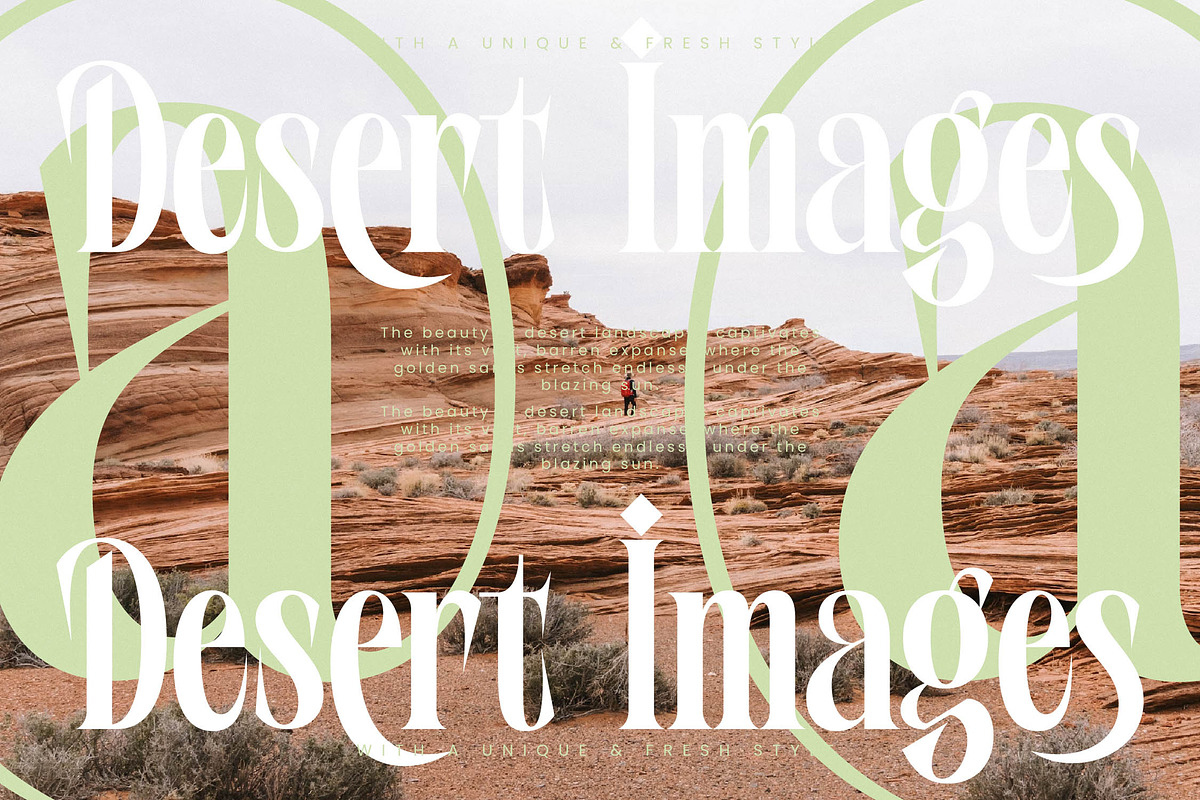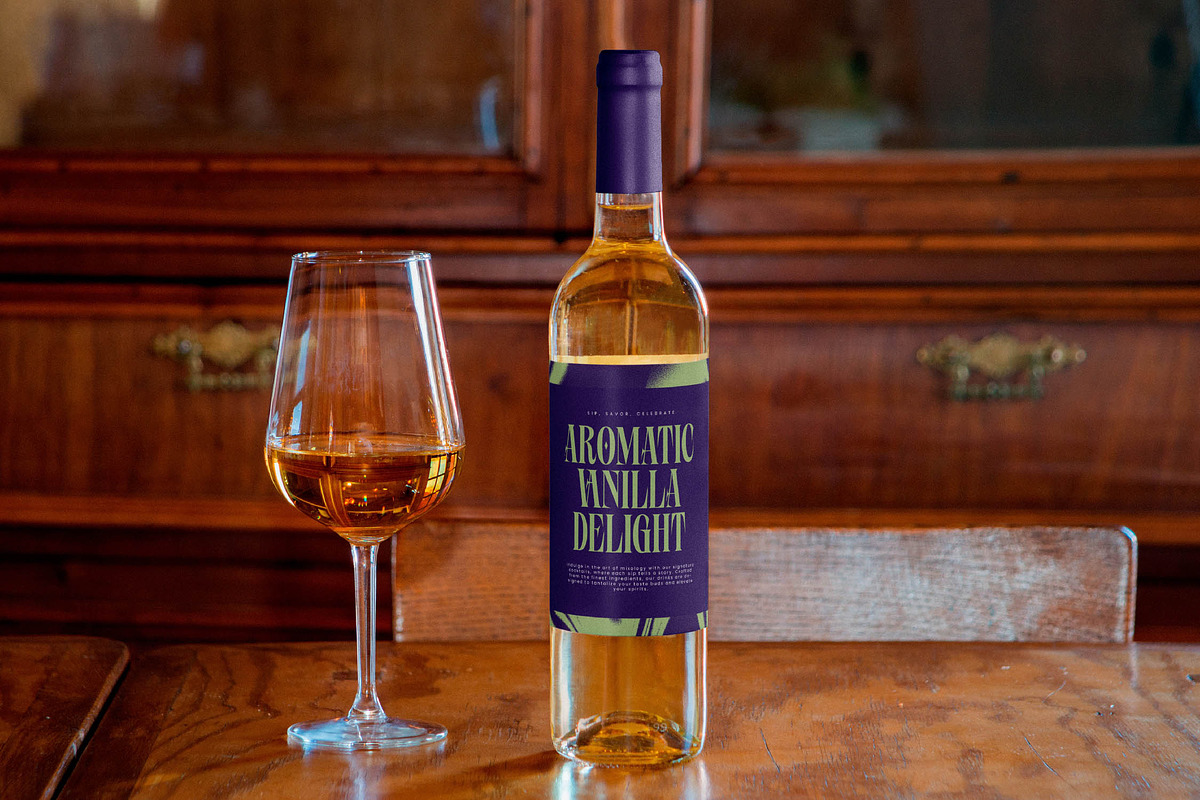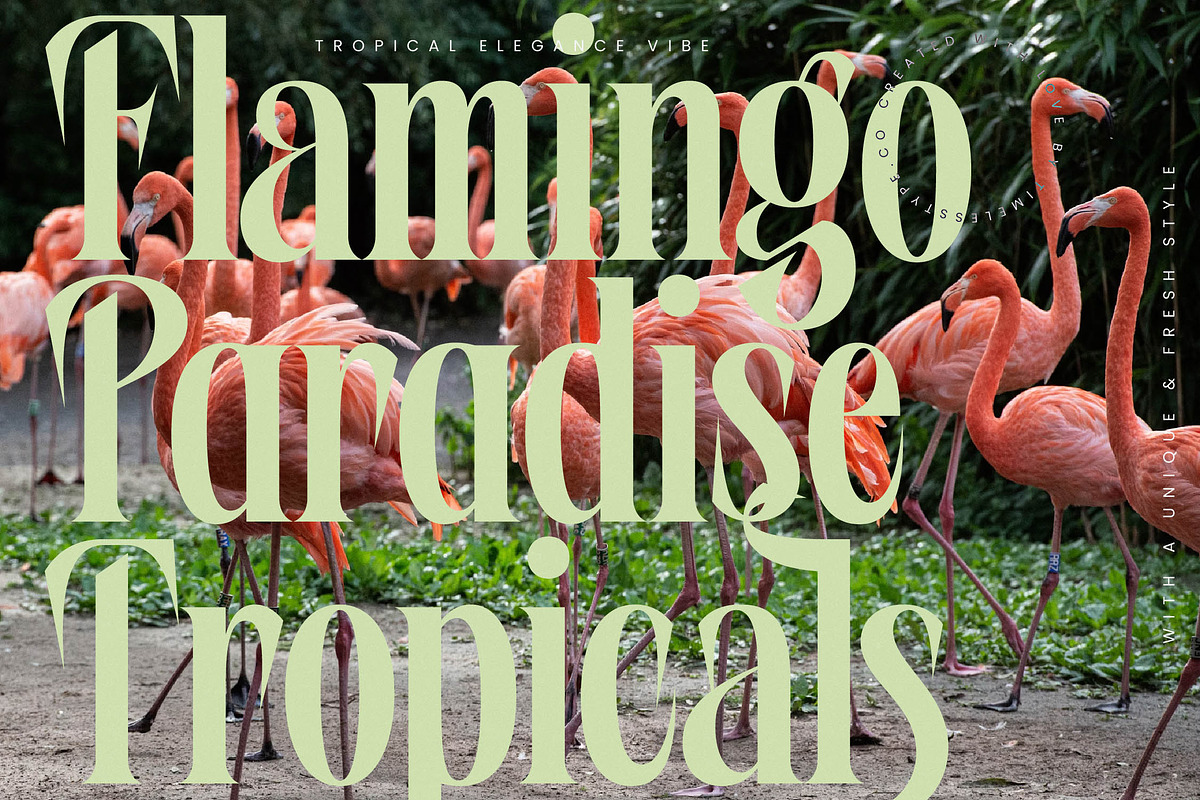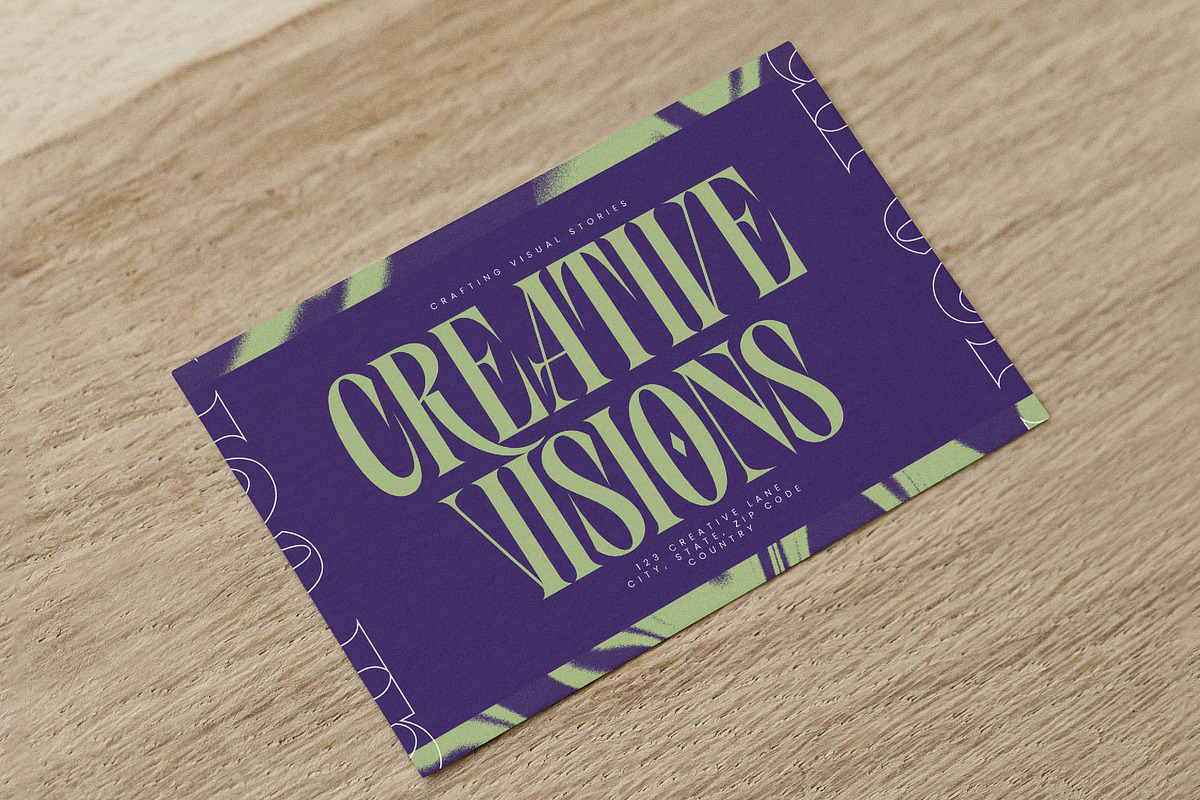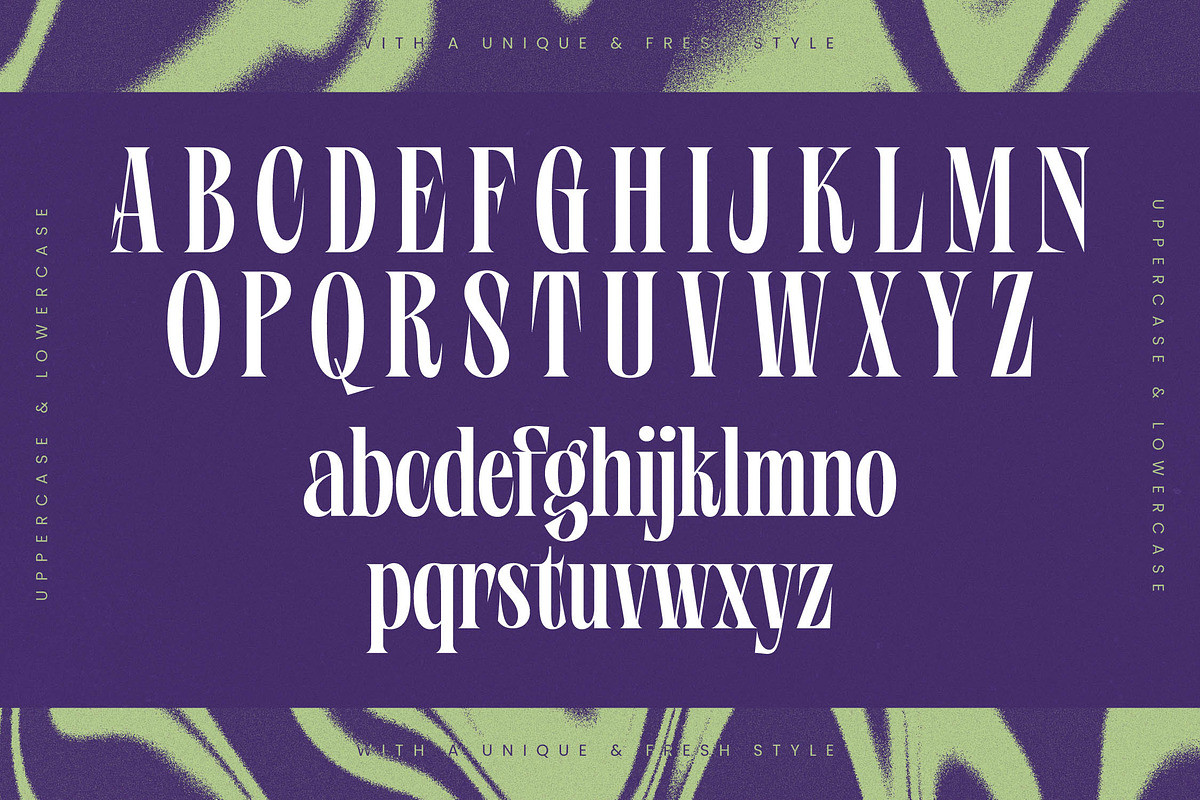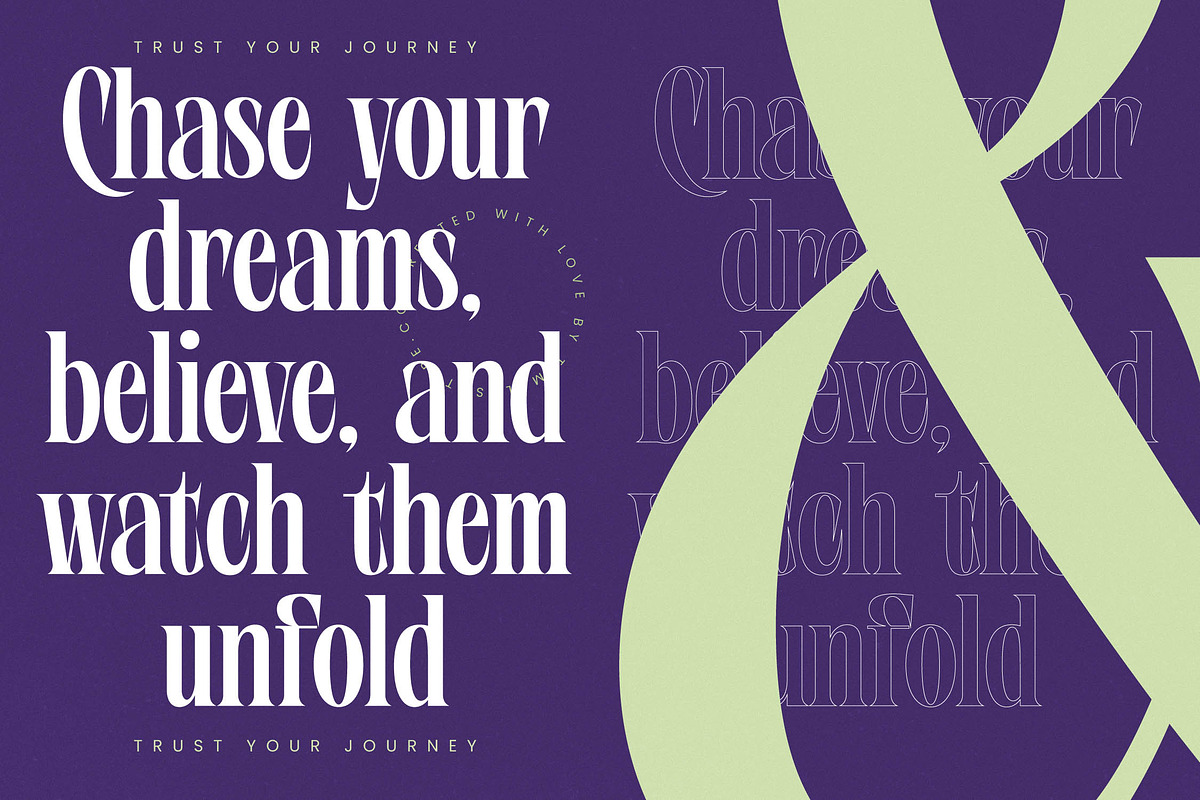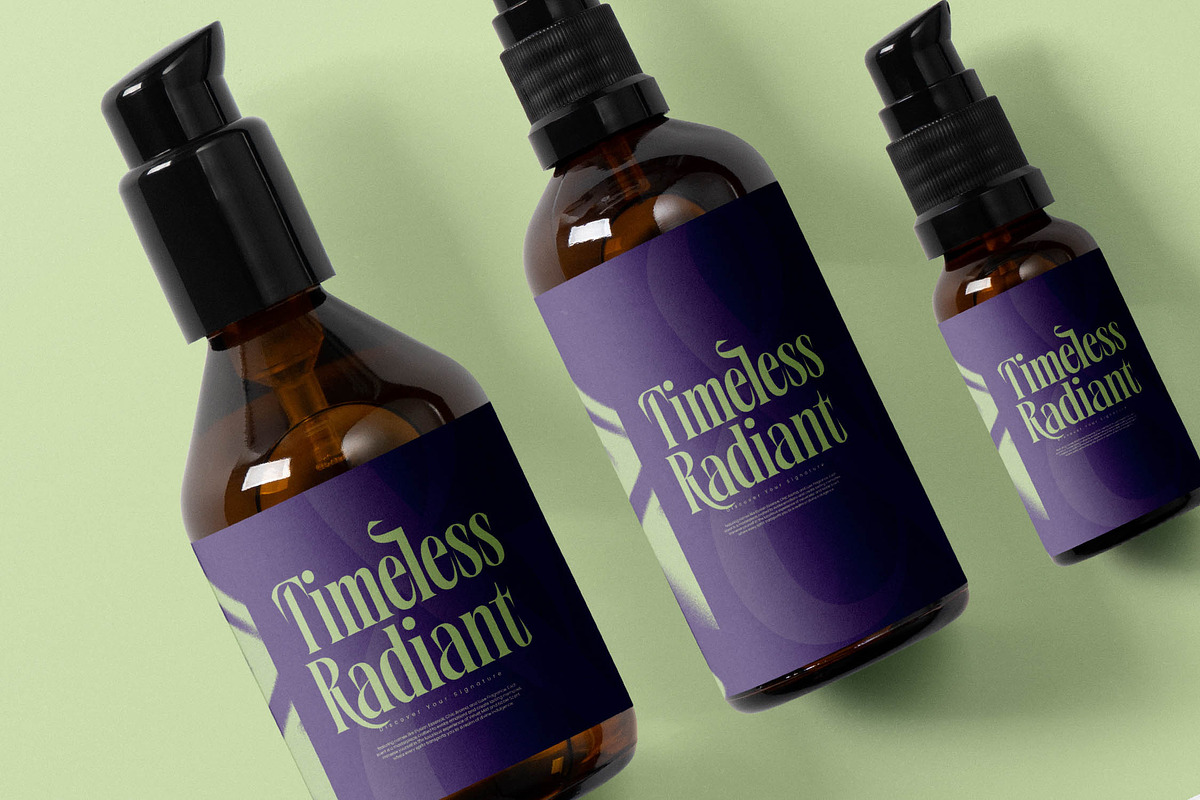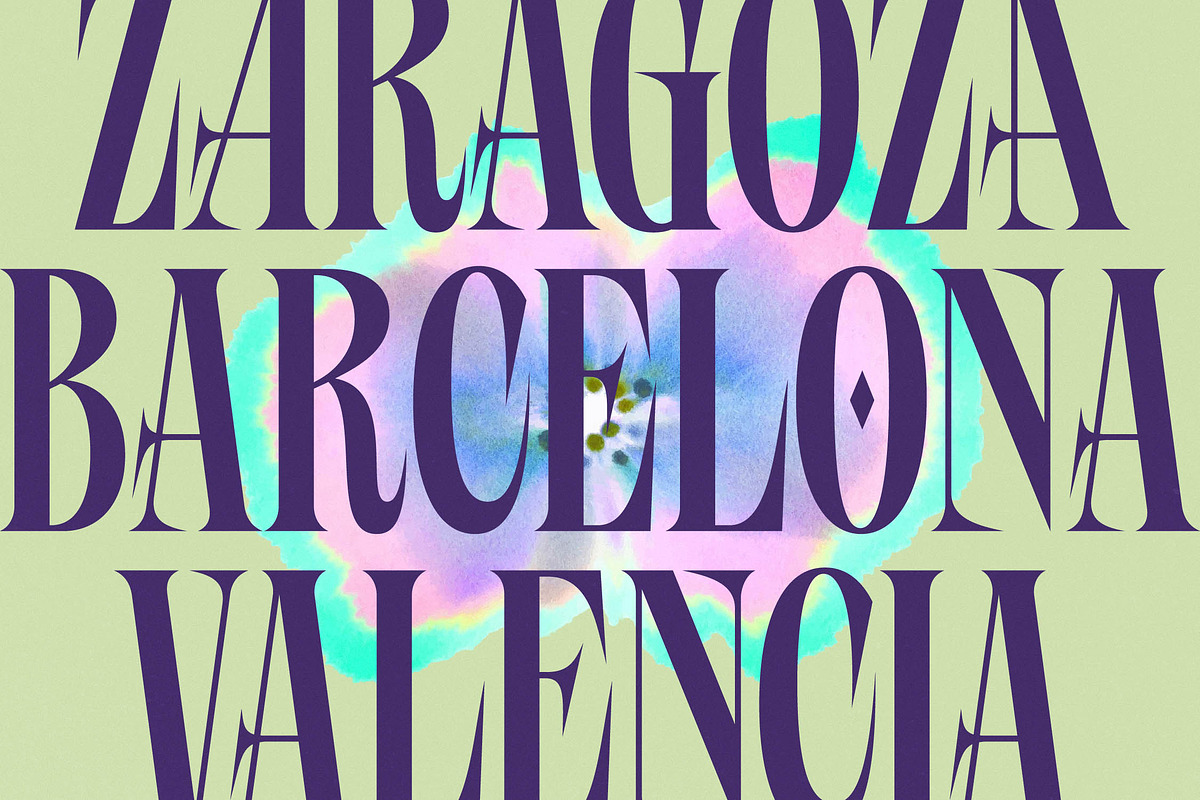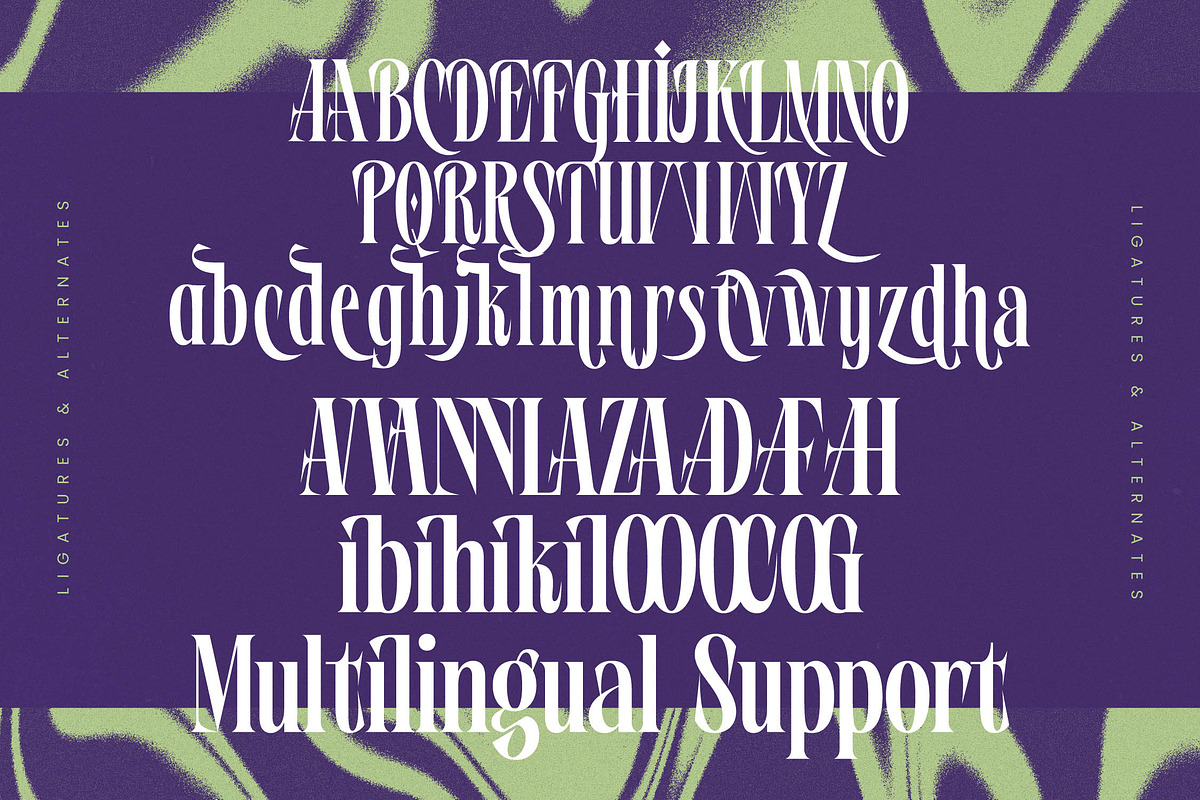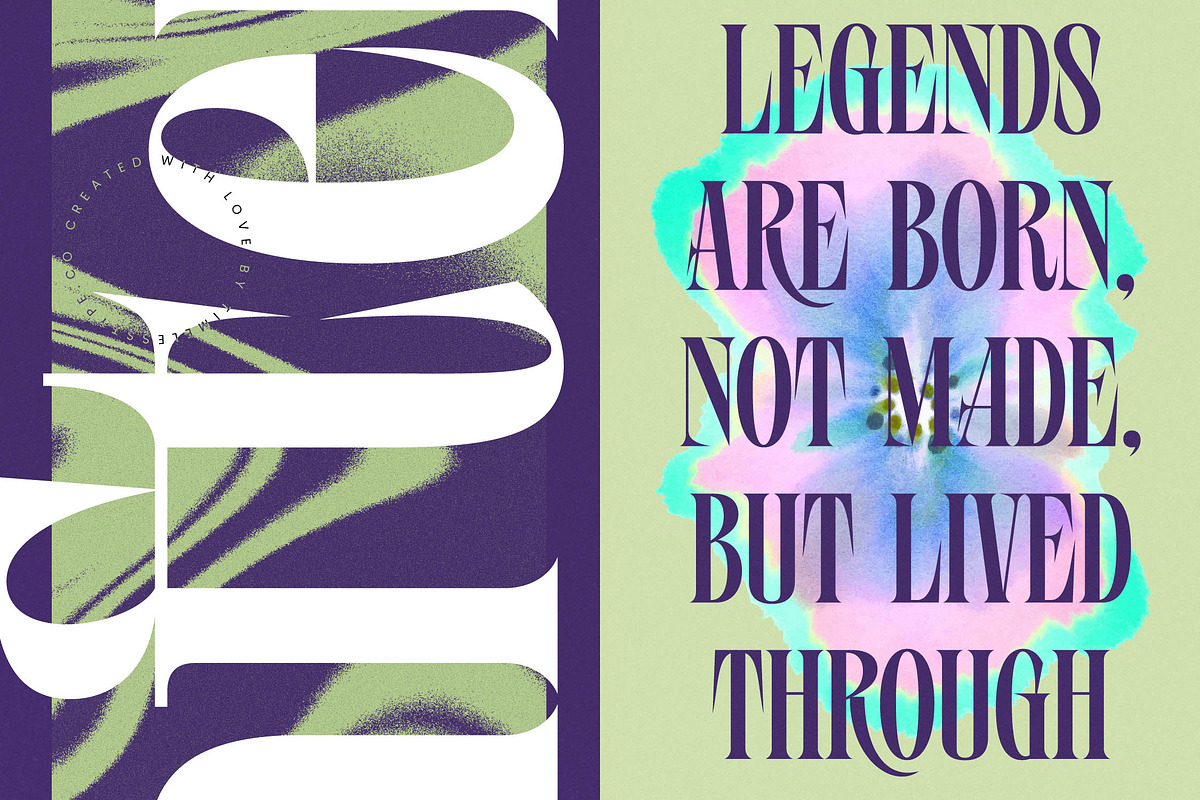
Wafterlic Modern Display Serif
Elevate your design aesthetic with the captivating presence of Wafterlic, a typeface that redefines contemporary elegance. This font is a masterclass in visual storytelling, blending sophisticated geometry with a hint of avant-garde flair to ensure your headlines never go unnoticed.
Drawing inspiration from the fluid motion of modern art and the structured precision of high-fashion layouts, Wafterlic captures a unique liquid-serif atmosphere. It bridges the gap between classic editorial heritage and the bold, experimental spirit of tomorrow’s design landscape, creating a timeless yet fresh visual language.
This modern serif display exudes an undeniable sense of luxury typography, making it the perfect choice for projects demanding a high-contrast serif with soul. As a premium editorial font, it provides maximum branding impact through its tall, condensed proportions and razor-sharp detailing that commands attention on every page.
Perfectly aligned with the current modern serif trend, Wafterlic stands out among editorial display fonts by offering a more expressive, character-driven typography experience. It meets the industry's growing demand for typefaces that are both highly legible and deeply artistic, helping designers break away from standard conventions.
Transform your next logo design or comprehensive branding identity into a visual statement that resonates with a high-end audience. Whether utilized for editorial layouts, luxury packaging, romantic wedding stationery, or avant-garde fashion campaigns, this font delivers unmatched prestige and clarity.
Take creative control with an extensive collection of ligatures and unique alternates that allow for custom letter combinations and sophisticated flourishes. Complete with multilingual support and a wide range of international characters, Wafterlic ensures your message is heard across the globe with consistent style.
- Ligature 19 Alternate 50